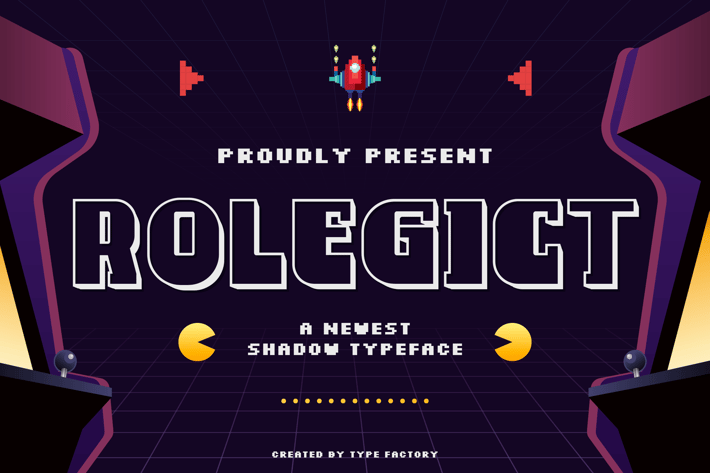
Rolegict - Shadow Typeface
Rolegict is a captivating shadow typeface that adds depth and dimension to your designs. With its bold letterforms and striking shadow effects, Rolegict is perfect for headlines, posters, branding, and any project that seeks to create an impactful visual statement. The interplay between light and shadow in this typeface creates a dynamic look that draws attention and enhances readability. Whether used in print or digital media, Rolegict delivers a modern and stylish aesthetic that elevates your creative projects.